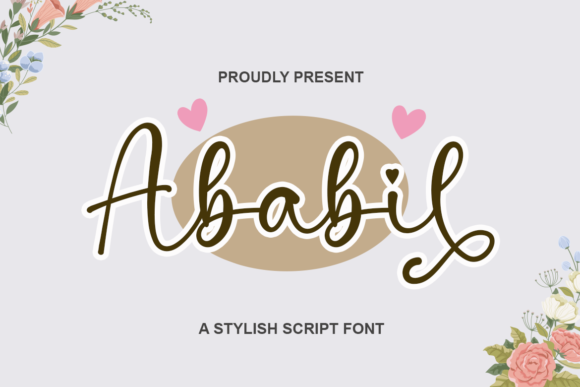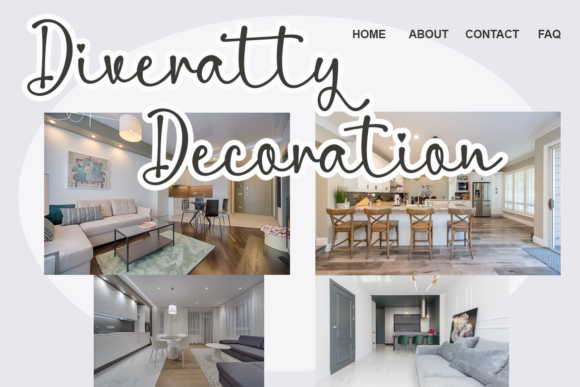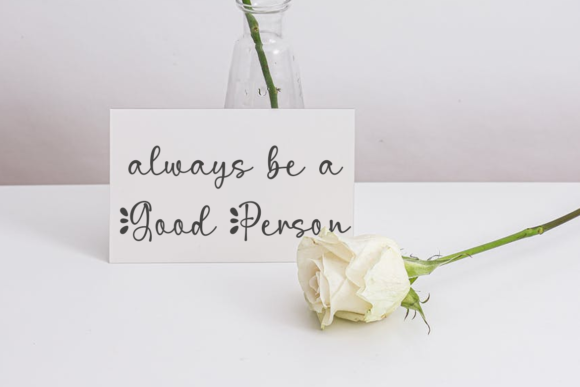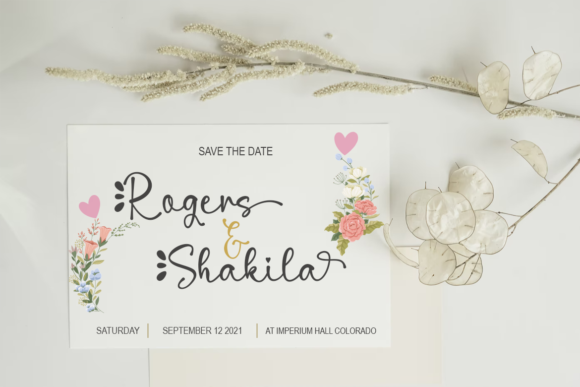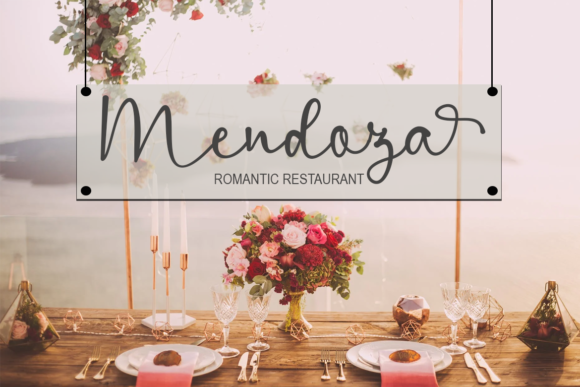
Ababil Font
Ababil is a beautiful and light handwritten font with a unique feel and a stunning impact. It will add a luxury spark to any design project that you wish to create! This font is PUA encoded which means you can access all glyphs and swashes with ease!